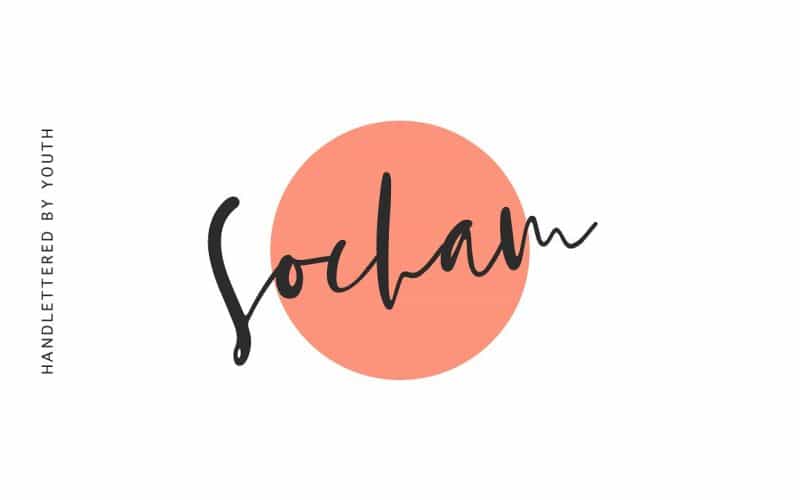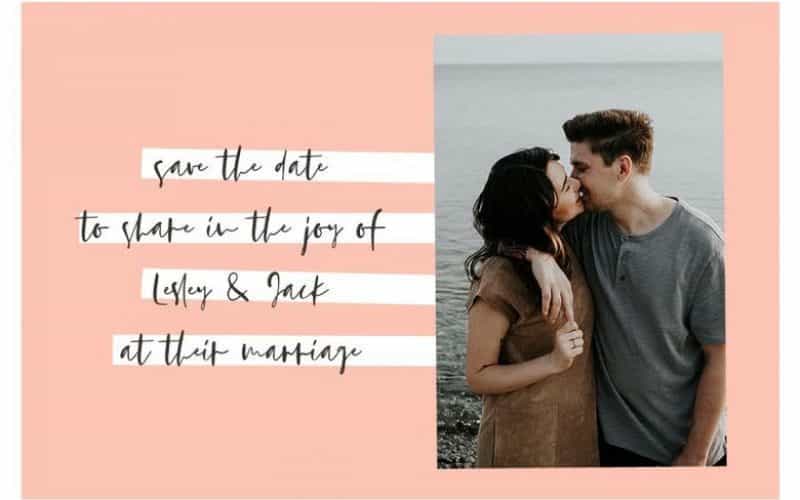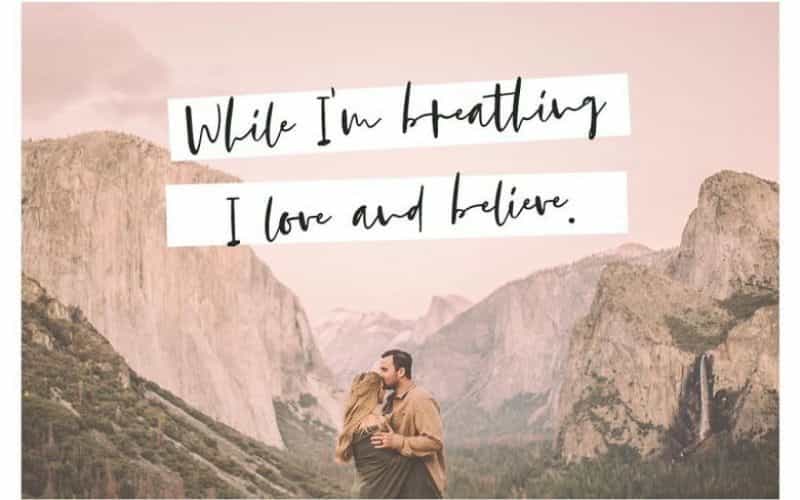
Discover Socham Script Font, part of the Brush collection—a versatile and unique font perfect for adding a personal touch to your projects. Download it for free and enjoy crafting designs with style, from invitations to social media posts. This font is available exclusively for personal use, giving you the freedom to create without limits. Unlock your creativity with Socham Script Font today!
Hello Everyone! This is a contemporary calligraphy script font that has been created on the basis of the real handwriting. A contemporary and attractive font with a large collection of alternative styles for your pretty design.